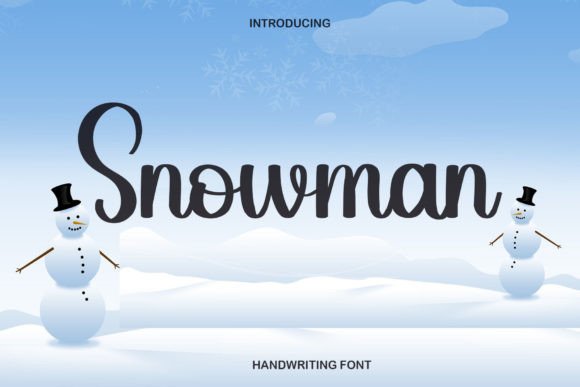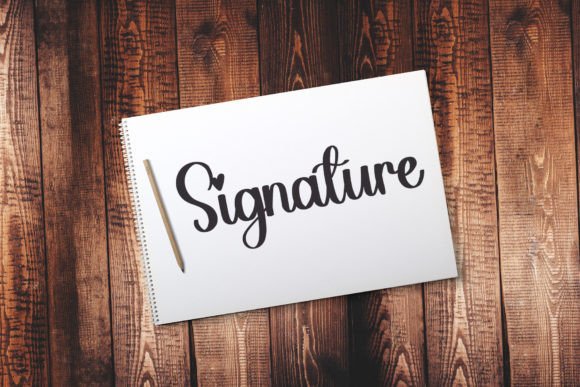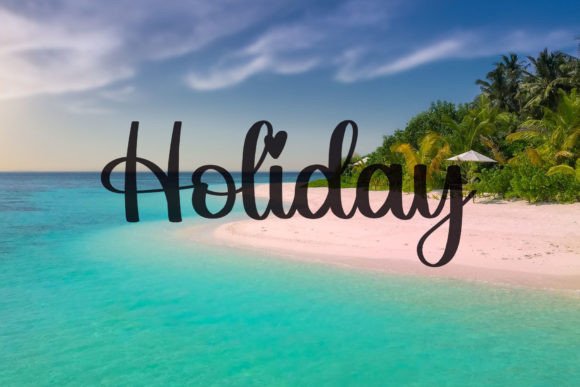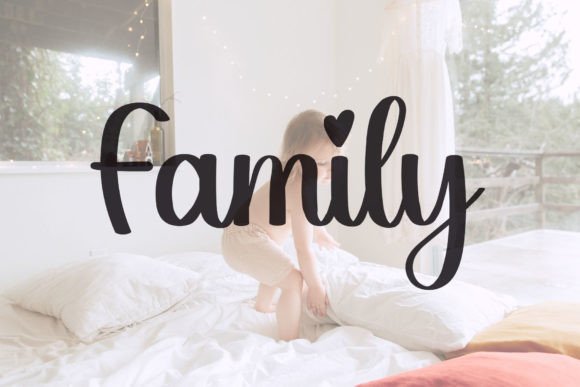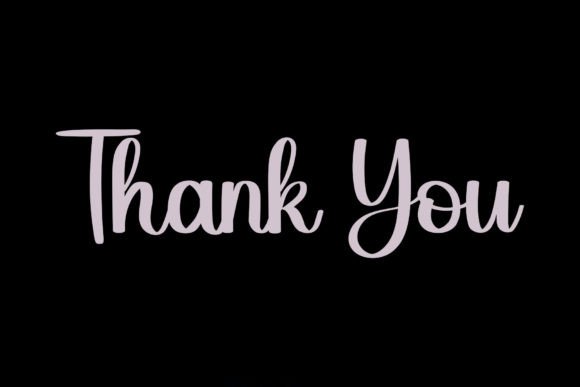
Snowman Font
About Snowman Font
Snowman Font is a trendy handwritten font that brings a contemporary vibe combined with impeccable form. Inspired by timeless classic calligraphy, Snowman Font adds elegance and class to any design project you undertake. Whether you are working on branding, logos, invitations, or social media posts, this font will elevate your creative work with its sophisticated style.
Designed with versatility in mind, Snowman Font fits perfectly across various product designs and creative projects. Its smooth curves and clean lines give a modern yet timeless feel, making it suitable for both professional and casual applications. From packaging designs to greeting cards, Snowman Font can adapt beautifully to enhance your visuals.
This font is also highly readable, which makes it ideal for use in different formats, including digital and print. You can confidently use SnowmanFont for posters, banners, book covers, and even watermarks. The elegant strokes of this font provide a unique character to your text, helping your designs stand out effortlessly.
Moreover, SnowmanFont supports multiple languages and comes with a full set of glyphs and special characters. This ensures your creative freedom is never limited, whether you’re creating international branding or personalized invitations. SnowmanFont is an excellent choice for designers looking to combine style, readability, and versatility in one package.